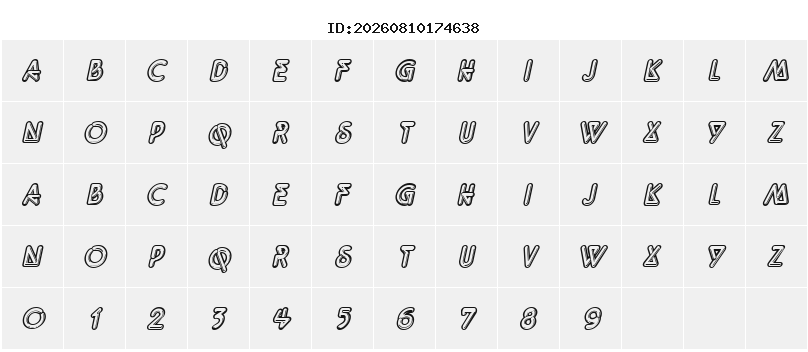
QuarkNeon Preview
• Font Name: QuarkNeon
• Font Style: Italique
• Font ID: Weatherly Systems, Inc. QuarkNeon Italic
• Full Font Name: QuarkNeon Italique
• Version: W.S.I. Int'l v1.1 for GSP: 6/20/95
• PostScript Name: QuarkNeon-Italic
About QuarkNeon.ttf
QuarkNeon.ttf is a modern, elegant sans-serif font designed for ultimate readability and visual harmony. Perfect for branding, headlines, web design, and print materials.